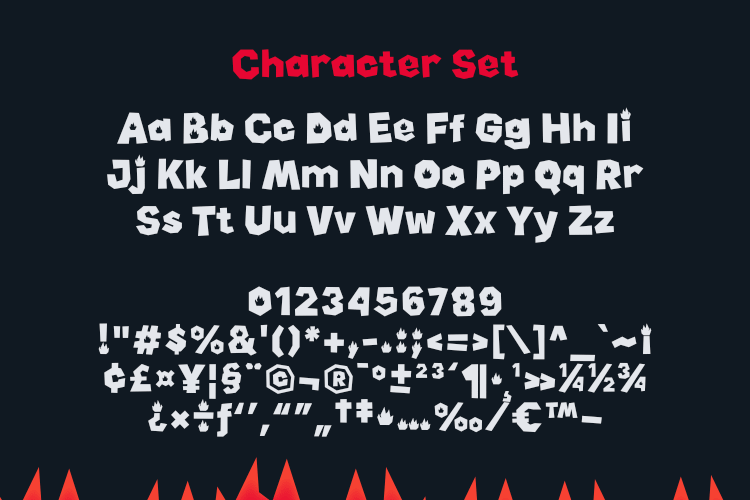
MGF Blazebox Font
BLAZEBOX is a bold fire display font designed with flames inside each letter, giving it a fierce and energetic personality. Perfect for gaming logos, sports branding, festival posters, merchandise, YouTube graphics, and edgy design projects, this font instantly grabs attention with its fiery look. Add intensity and heat to your designs with BLAZEBOX, the font that burns with power.